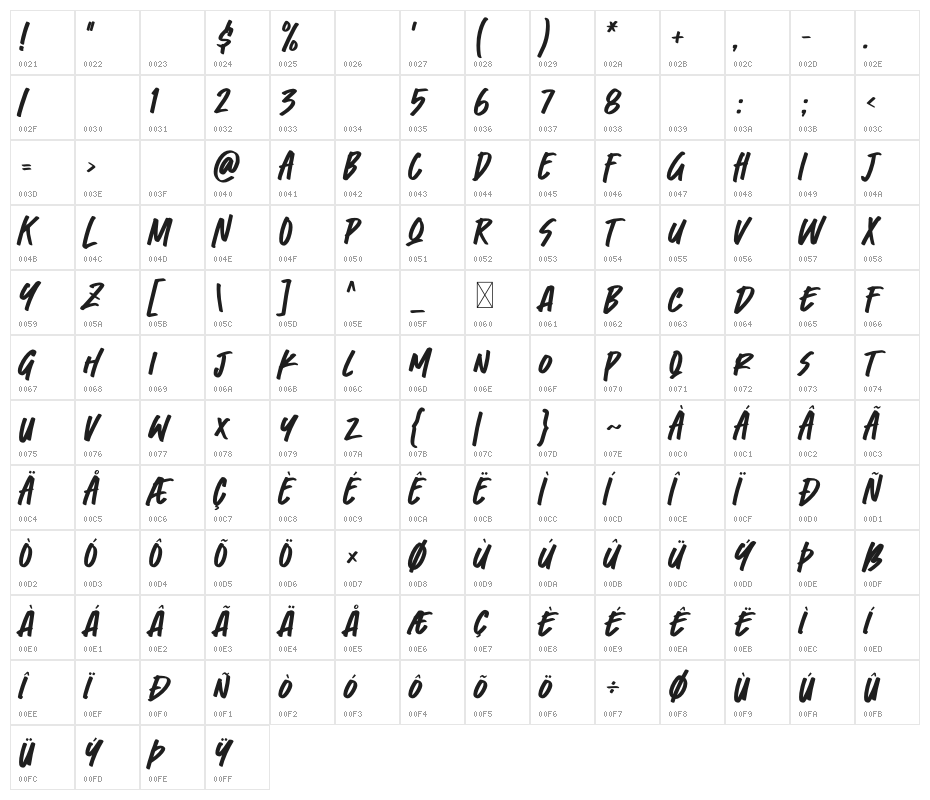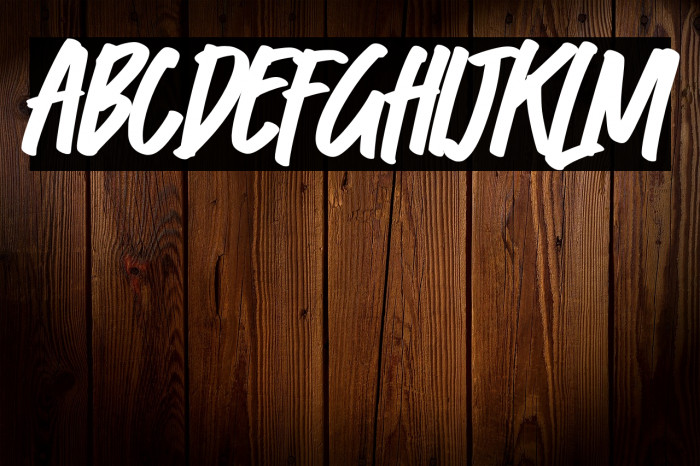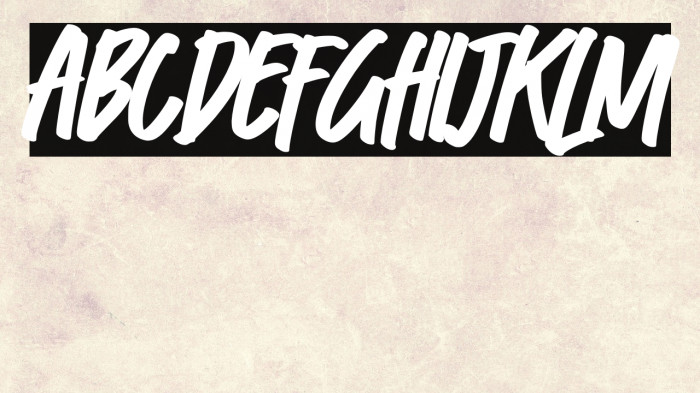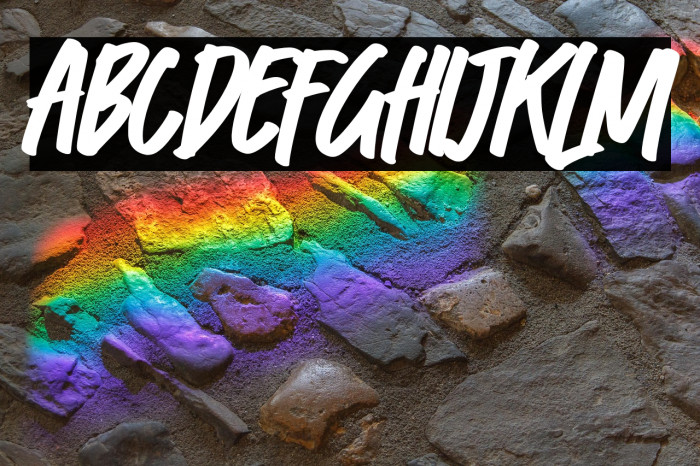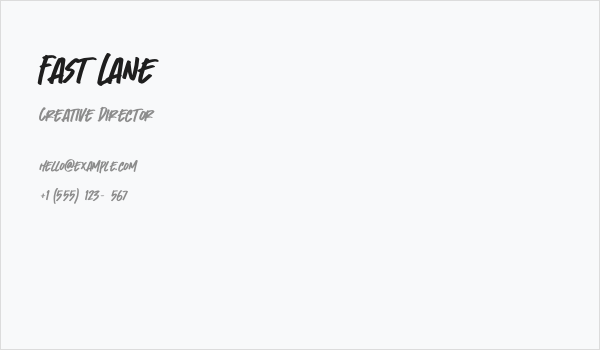
Fast Lane Font
Fast Lane Description
This font exudes a dynamic and energetic vibe, characterized by its bold and expressive brush strokes. The letters are crafted with a sense of movement, giving them a lively and spontaneous appearance. The uppercase and lowercase letters maintain a consistent style, with slightly irregular edges that enhance the hand-drawn feel. The numerals and special characters are equally bold, ensuring a cohesive look across all elements. This font is perfect for projects that require a personal touch or a sense of urgency and excitement.
| Use Case | Logos, Headlines, Posters |
| Proposed Projects | Ideal for branding, posters, social media graphics, and any design needing a dynamic, personal touch. |